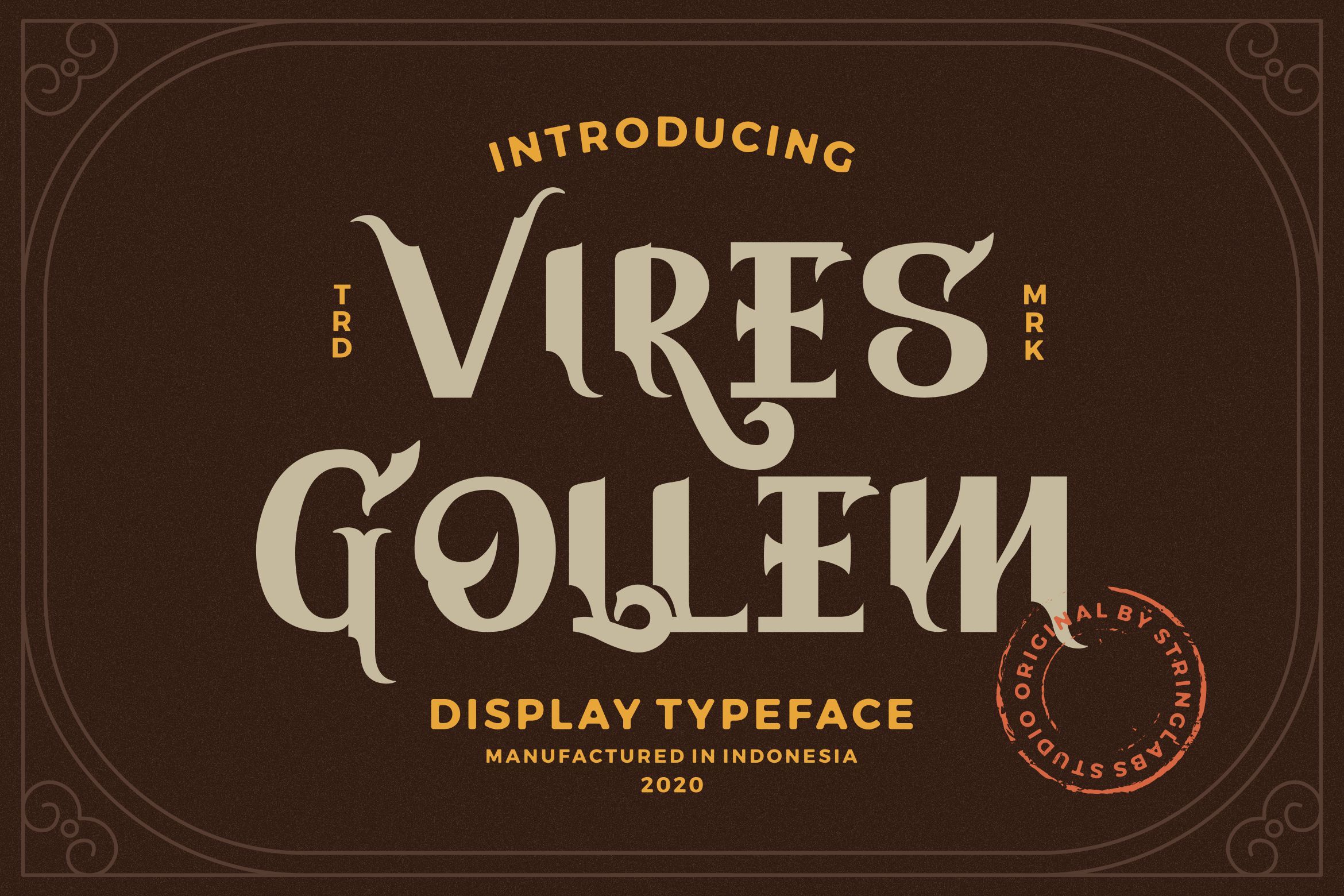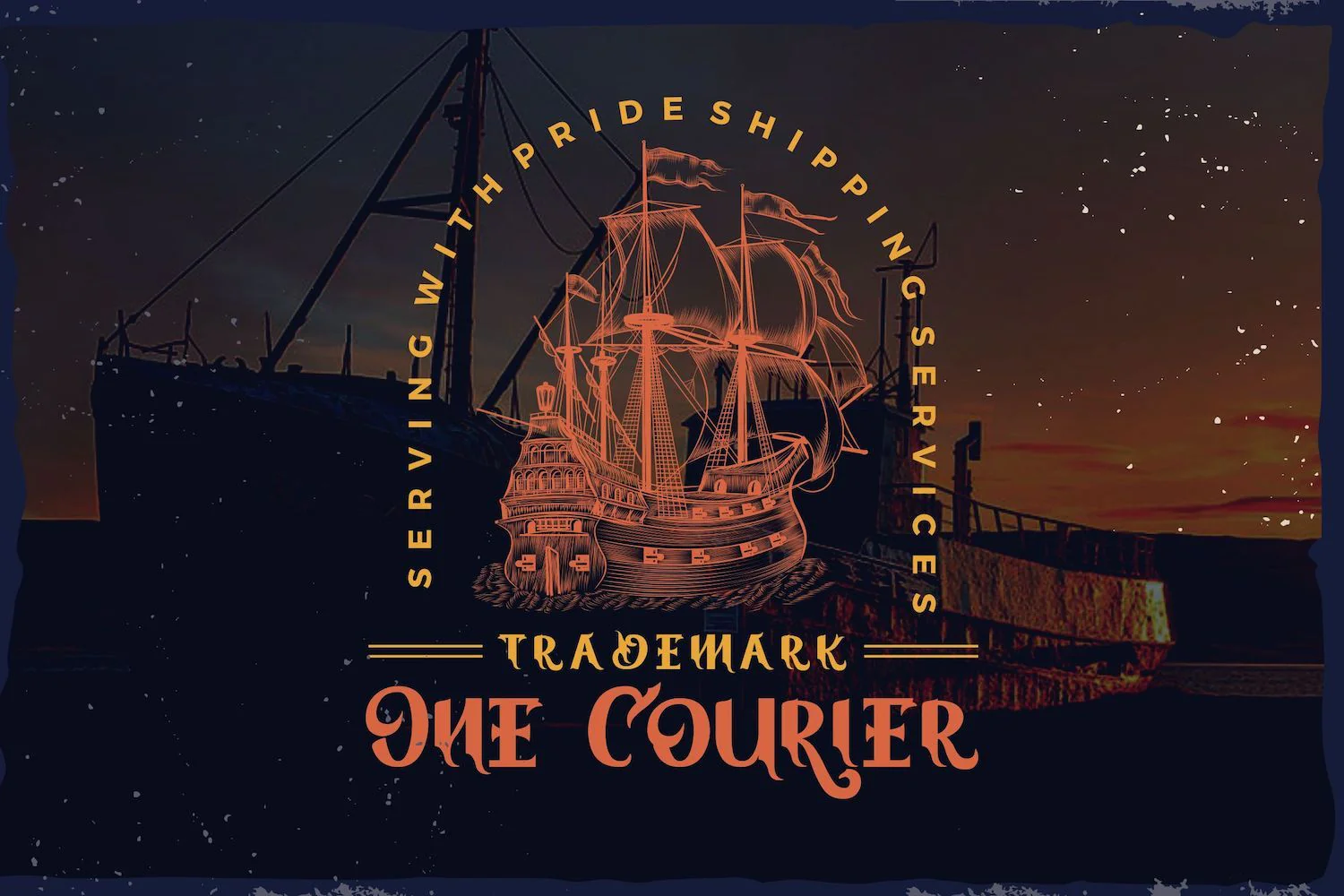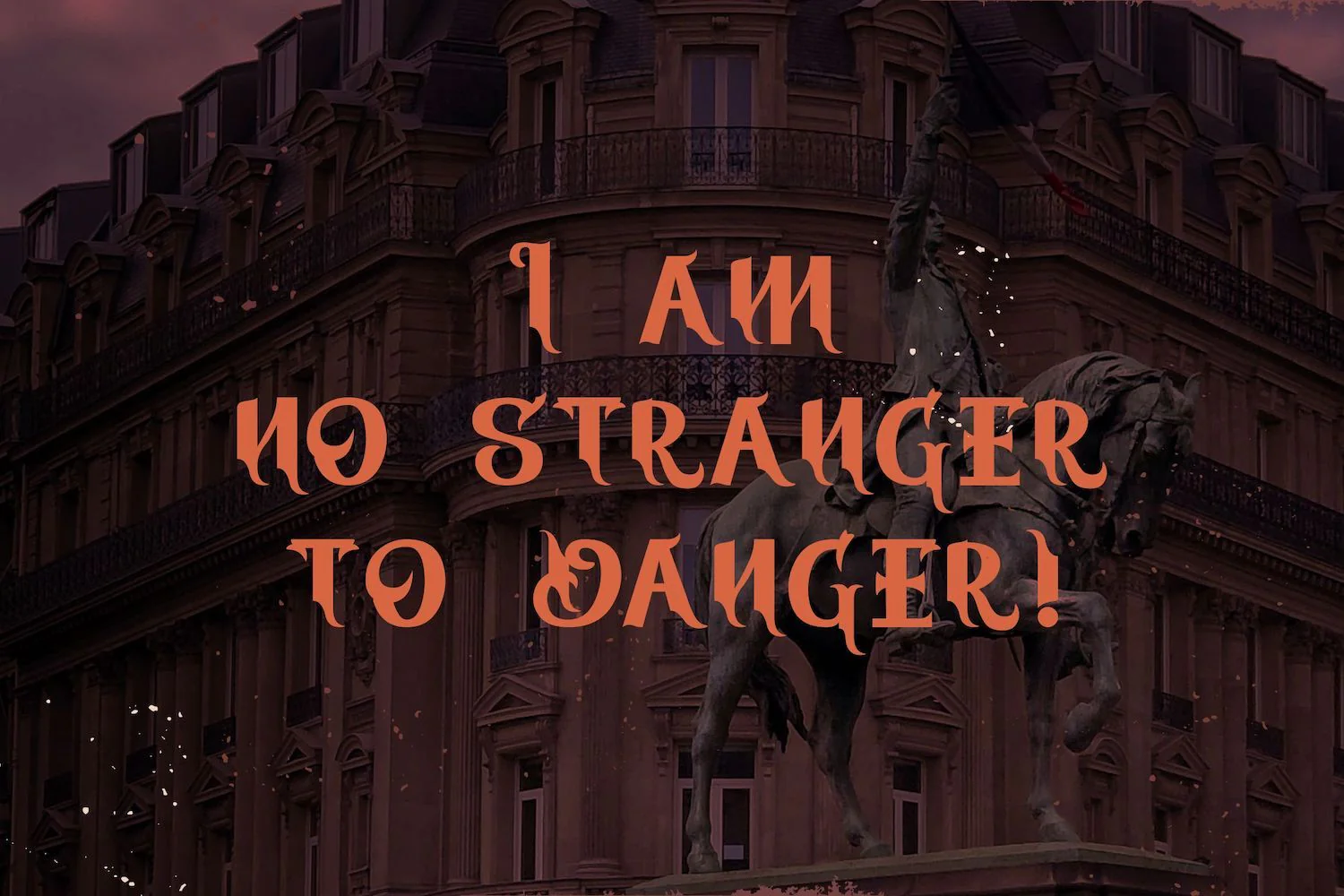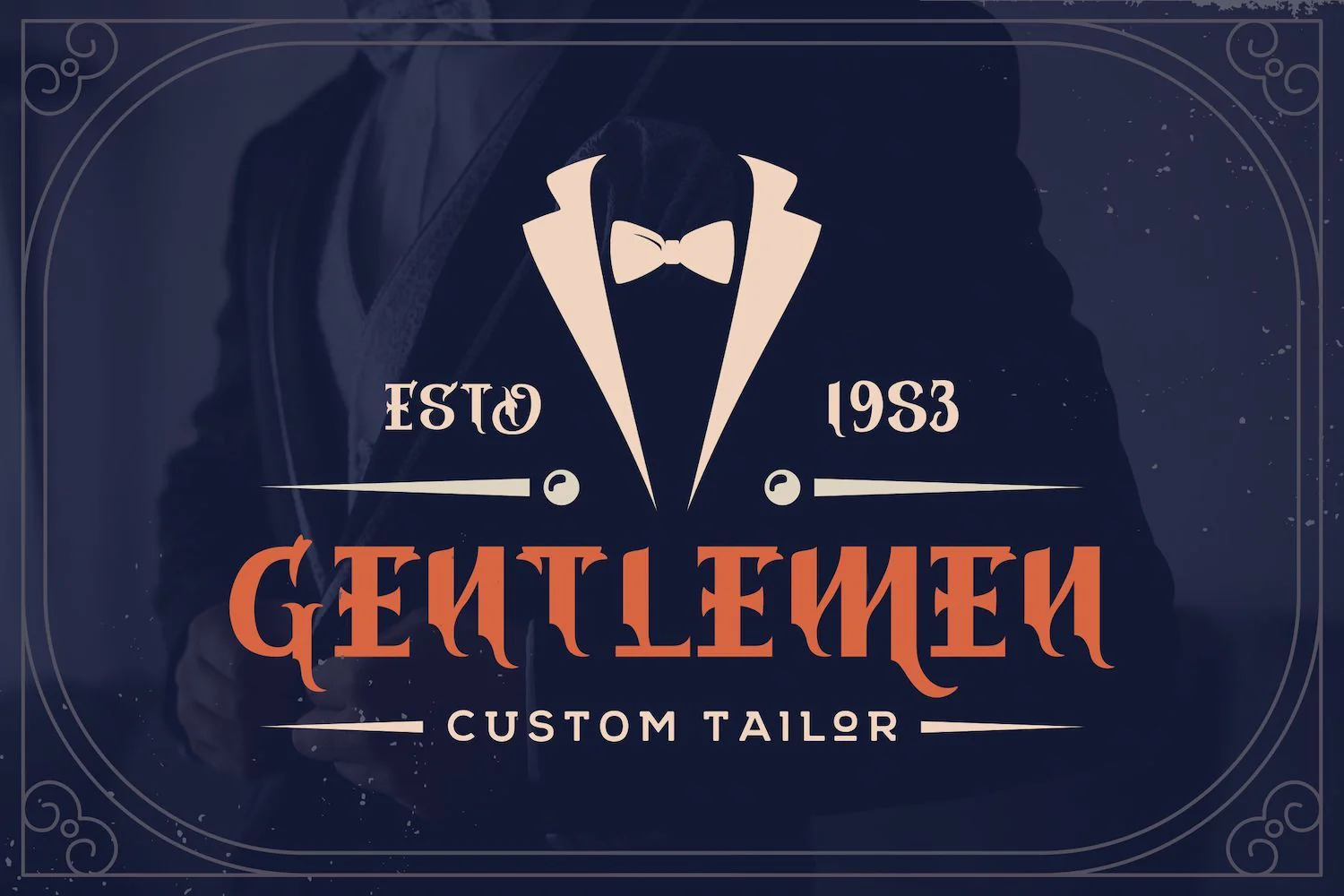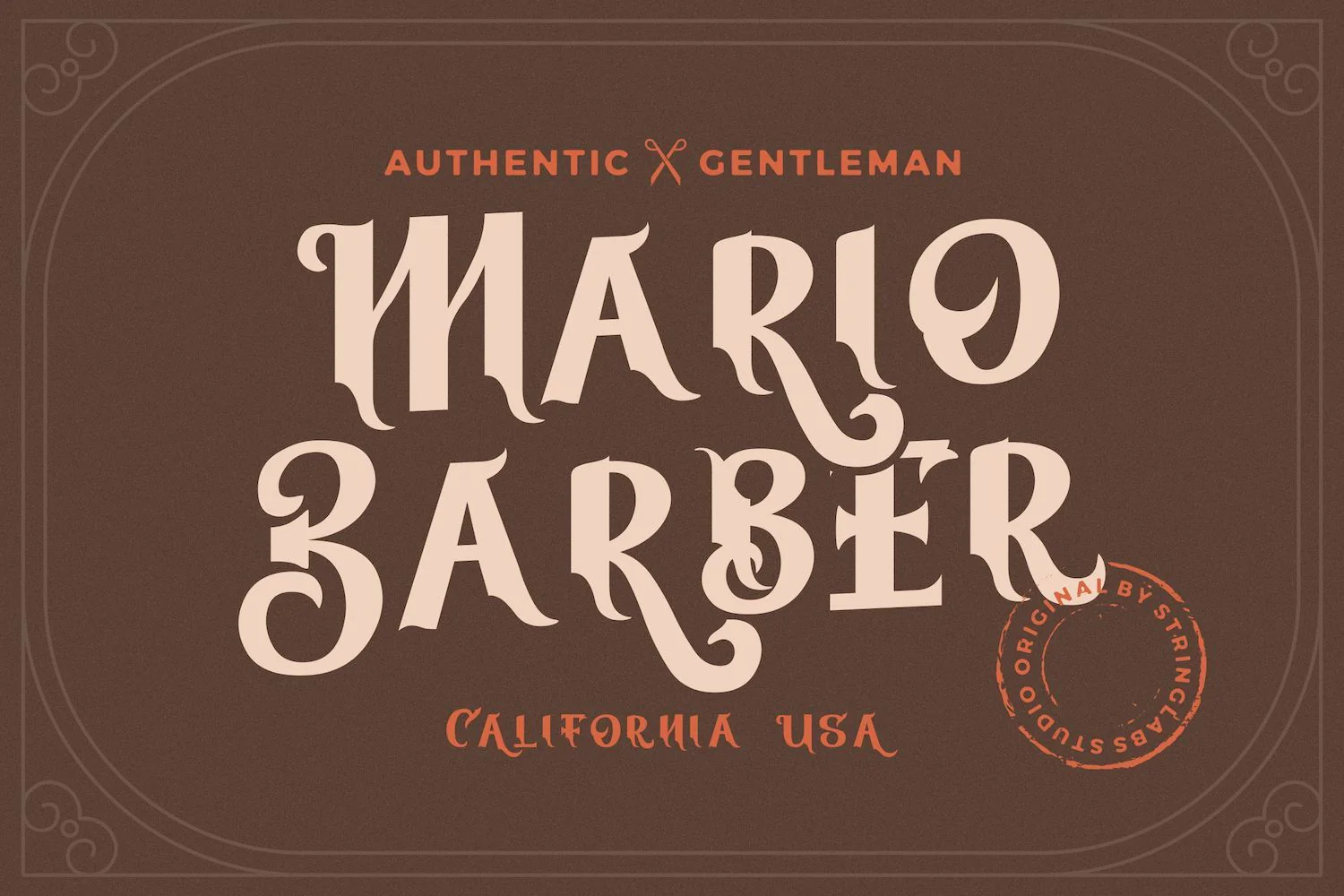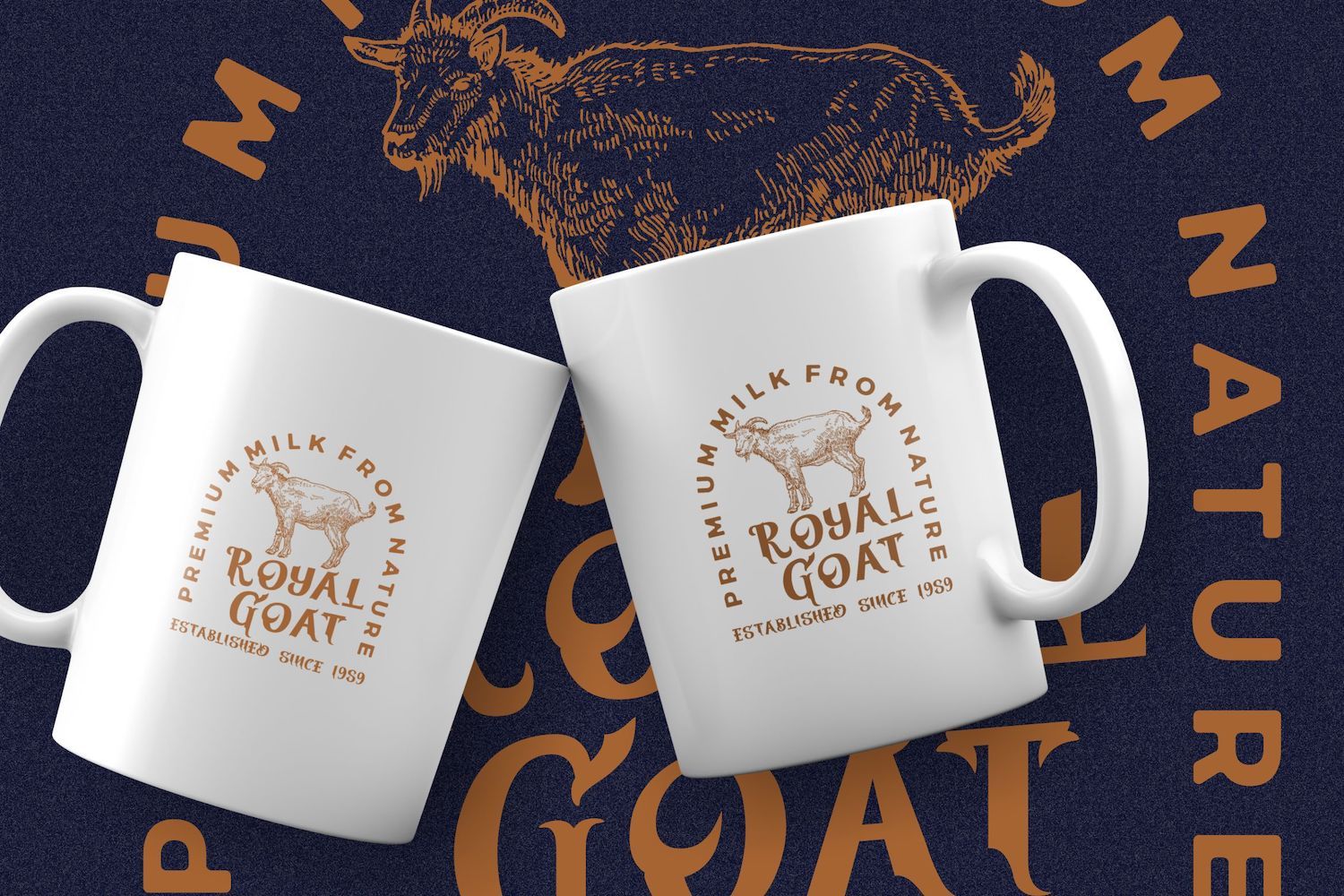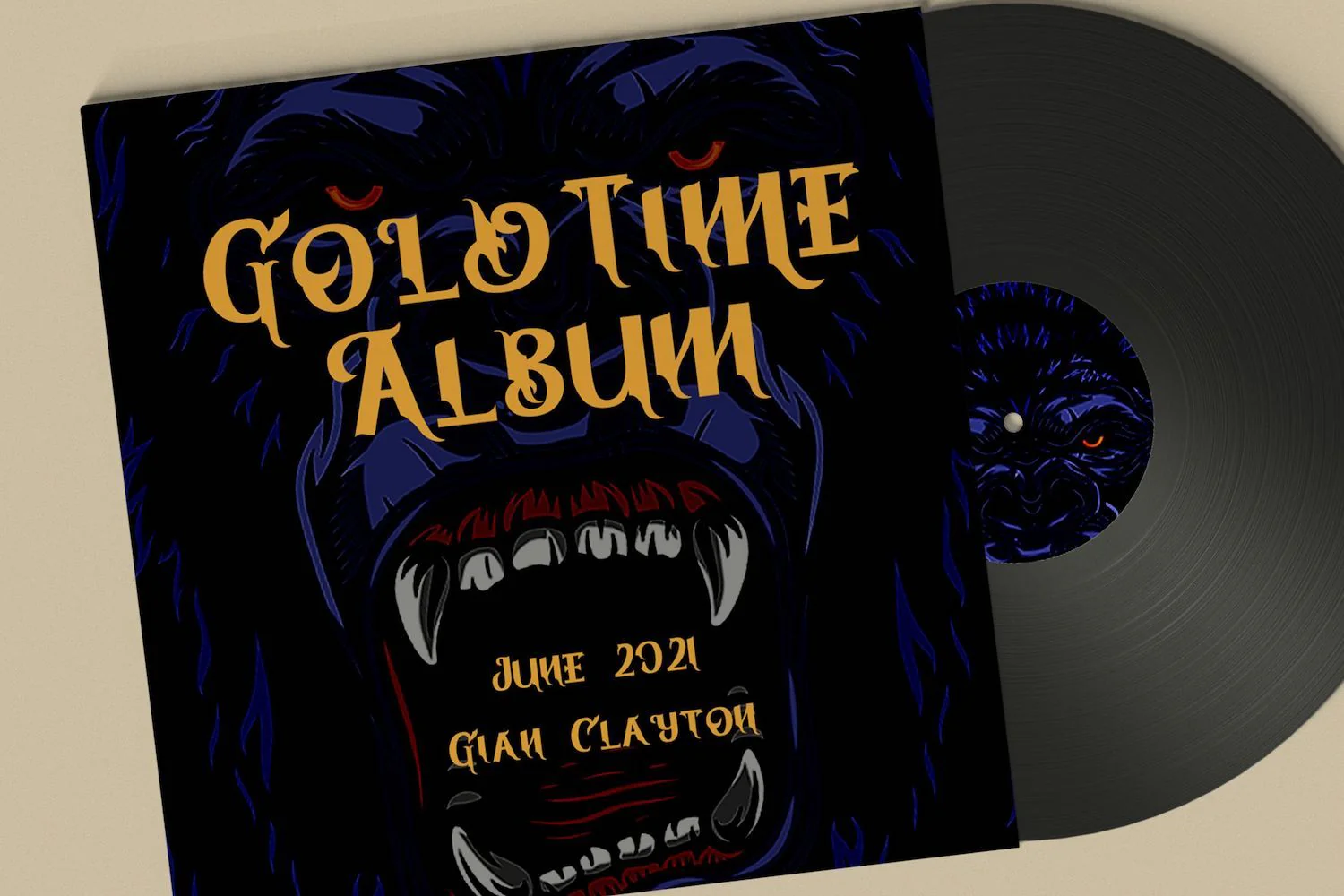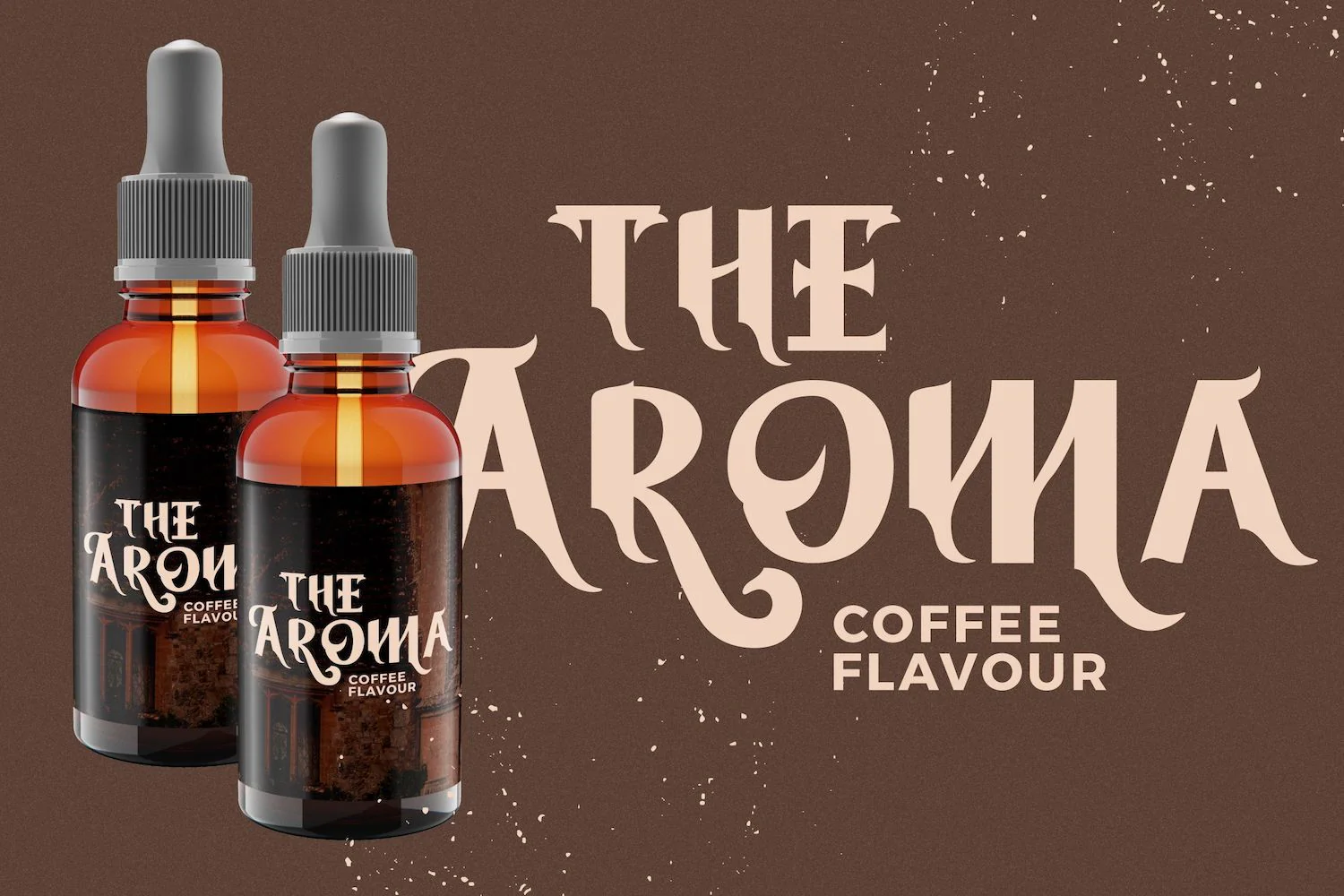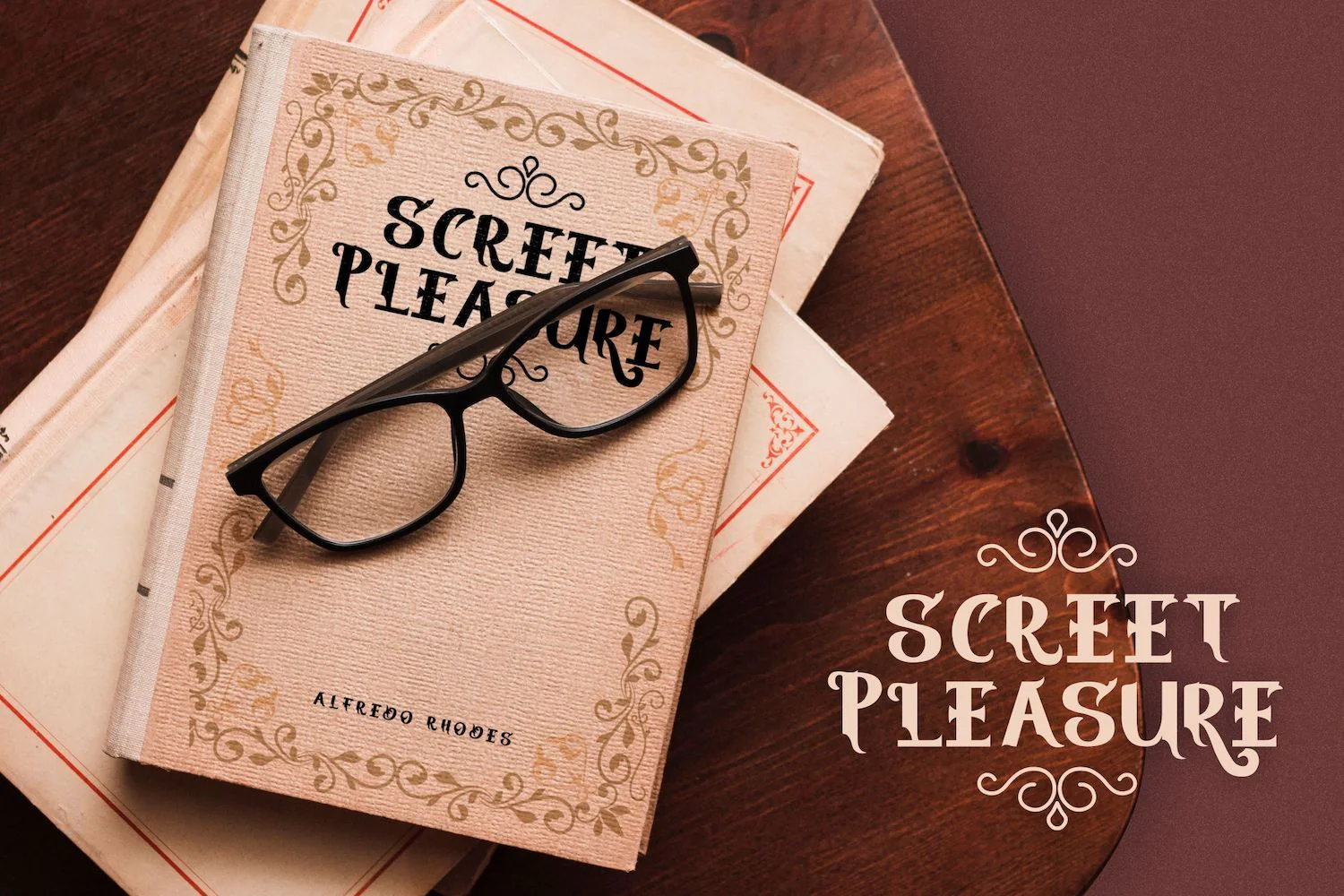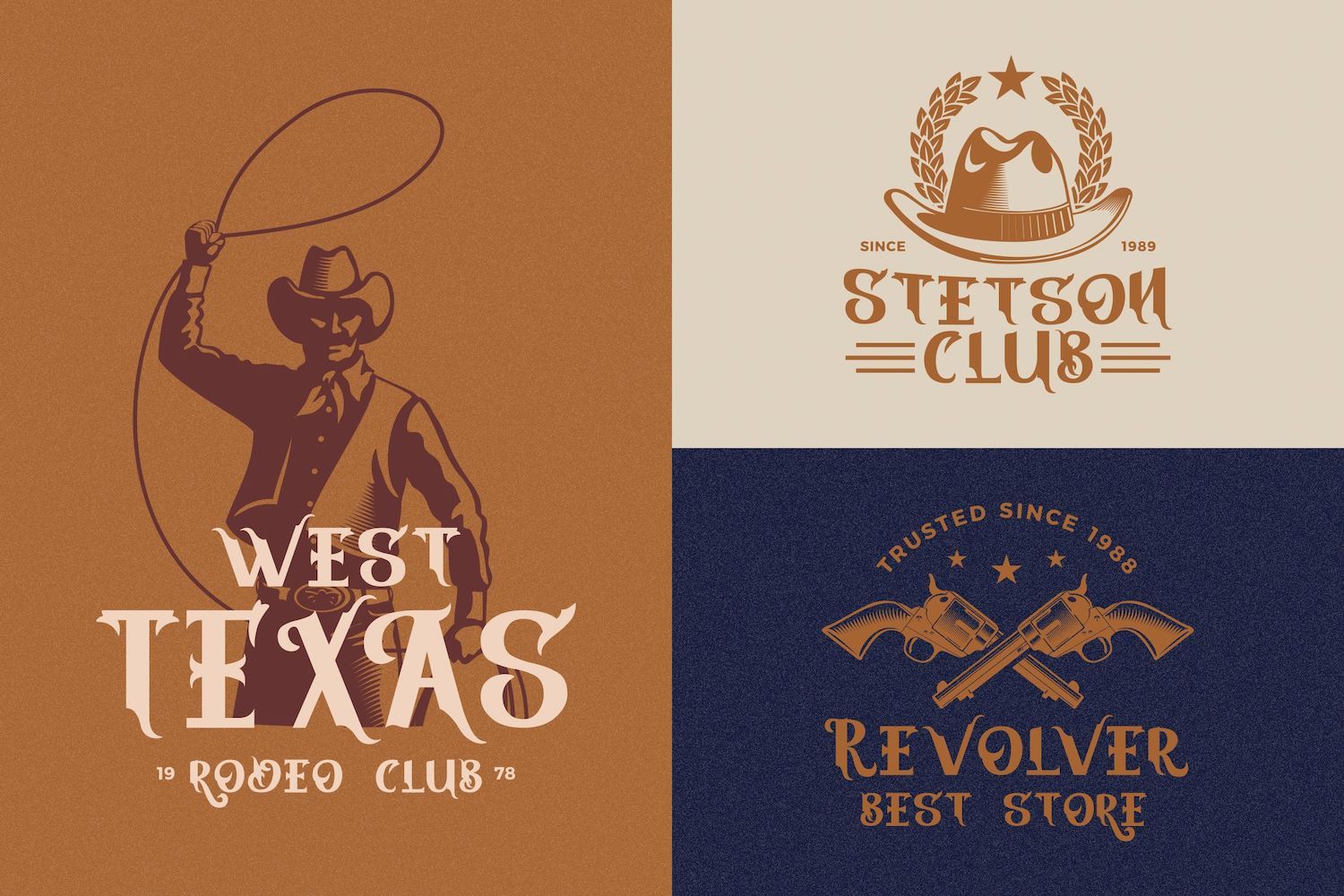
Vires Gollem - Display Font
Introducing Vires Gollem - Display Font
Vires Gollem is a unique and bold display font. Get inspired by its incredibly versatile style and use it to create spectacular designs!
Introducing Vires Gollem - Display Font
Vires Gollem is a unique and bold display font. Get inspired by its incredibly versatile style and use it to create spectacular designs!